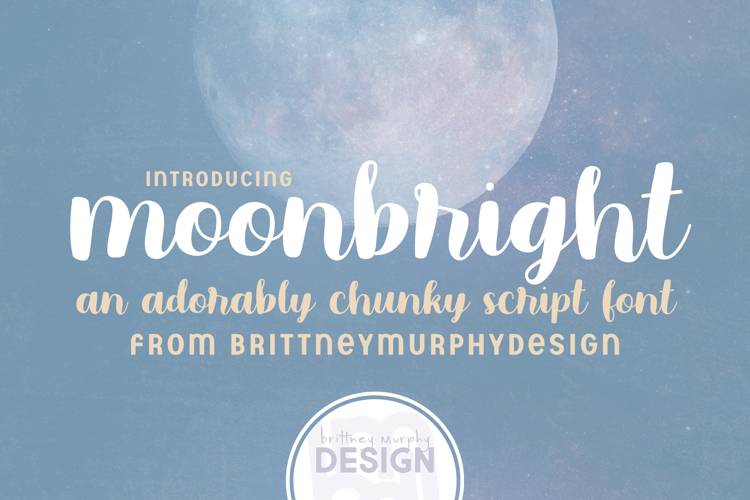
moonbright Font
Moonbright is a cute, chunky script font. Includes most Latin-based foreign language support (see images for accented letters included). Great for headlines or decor!